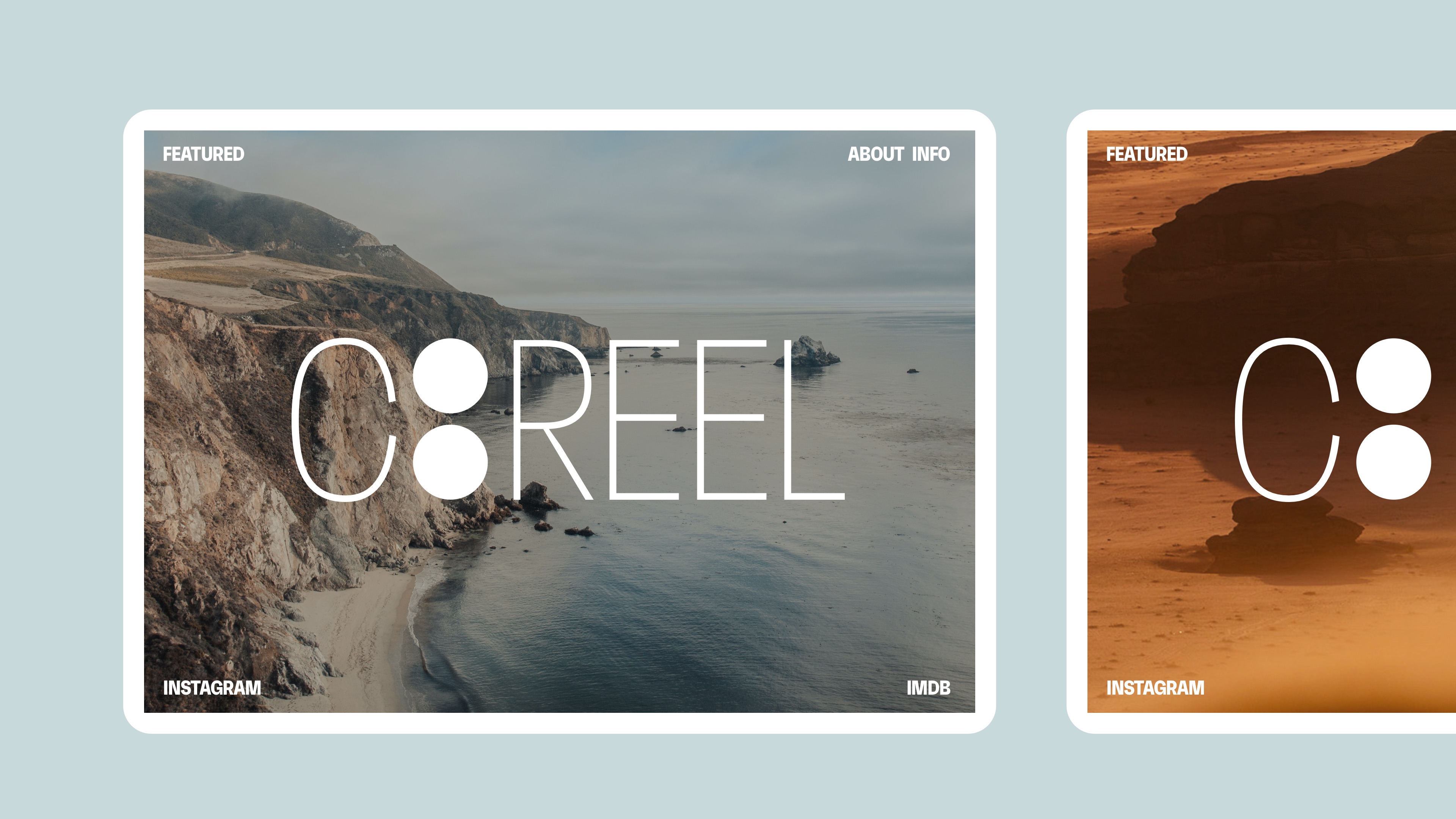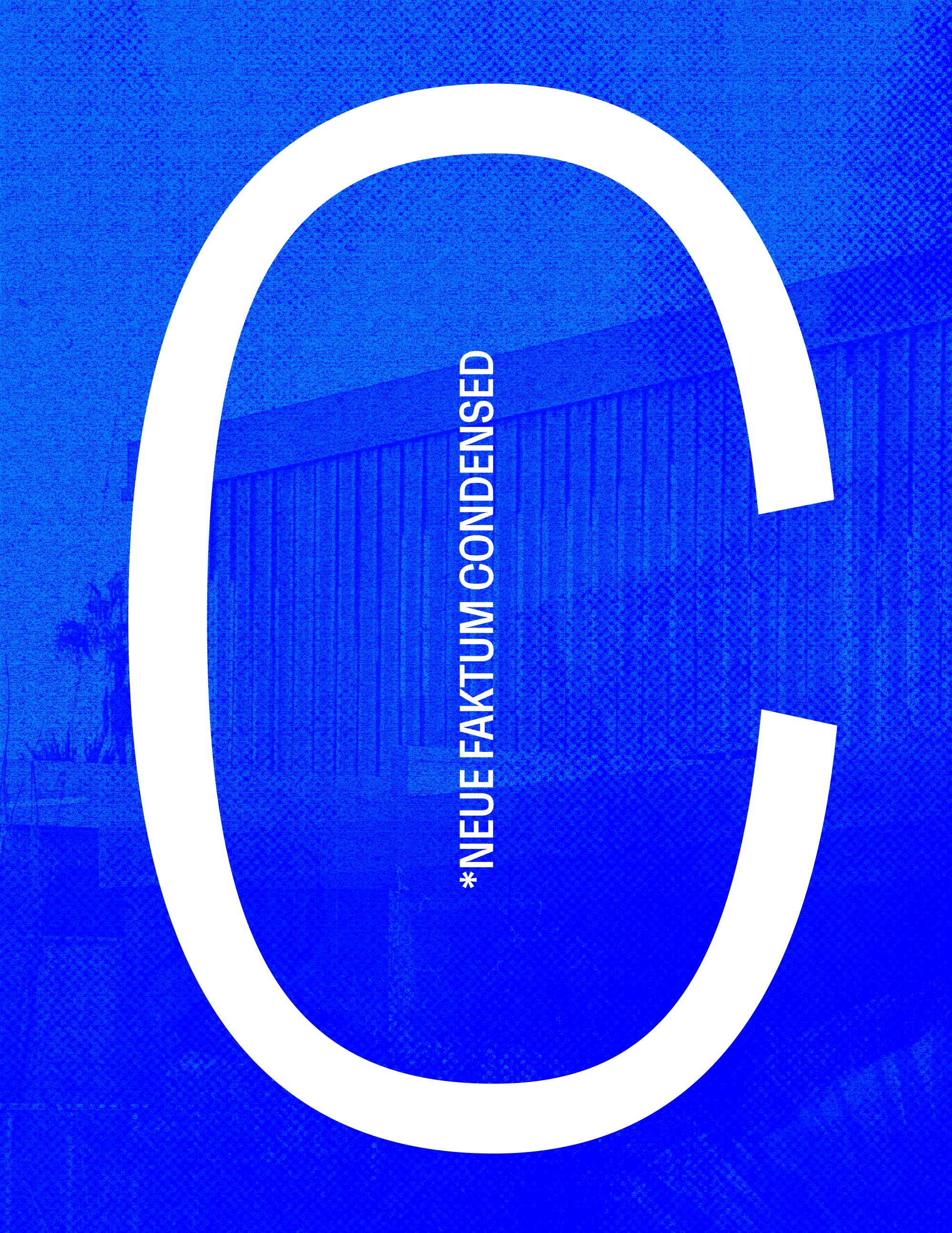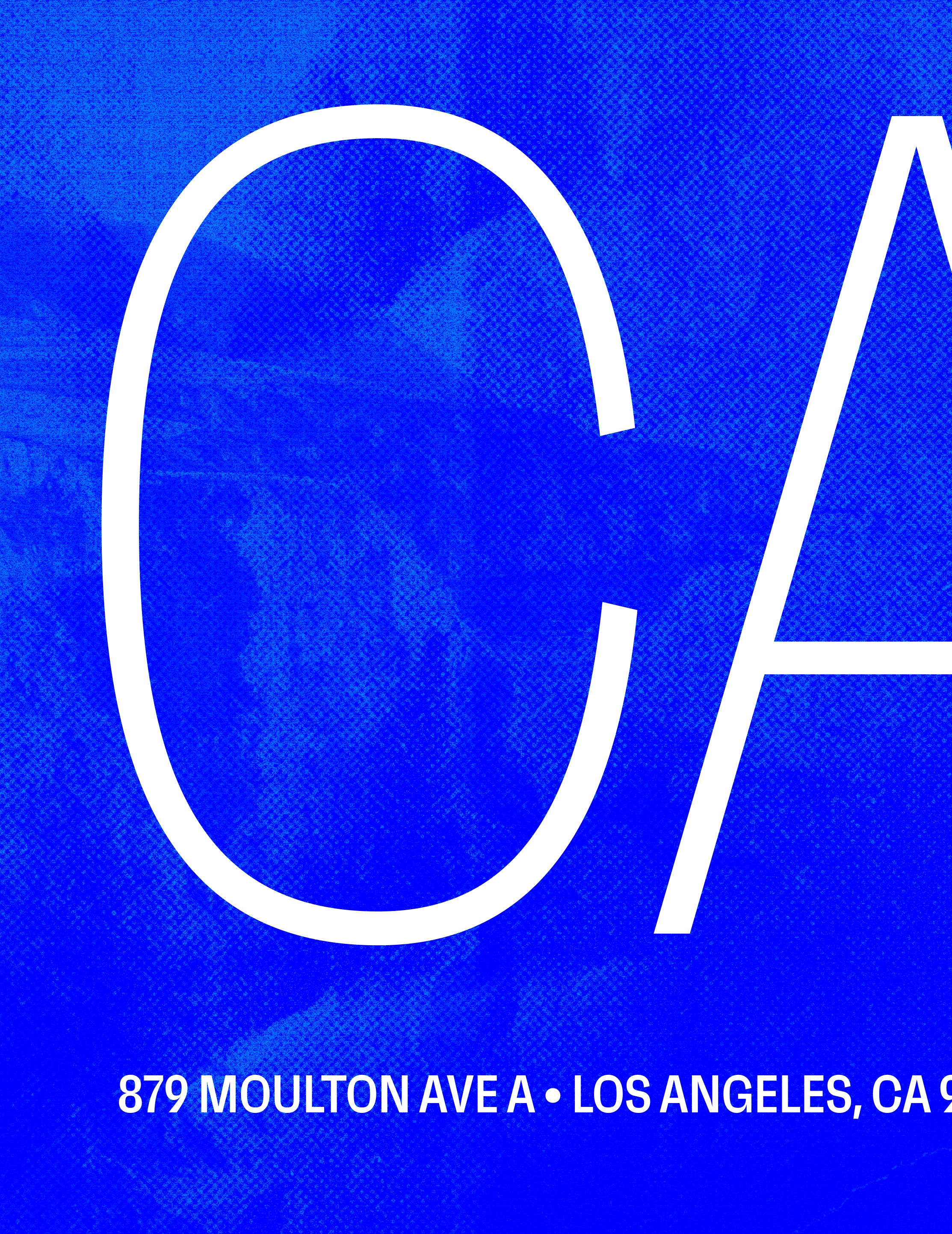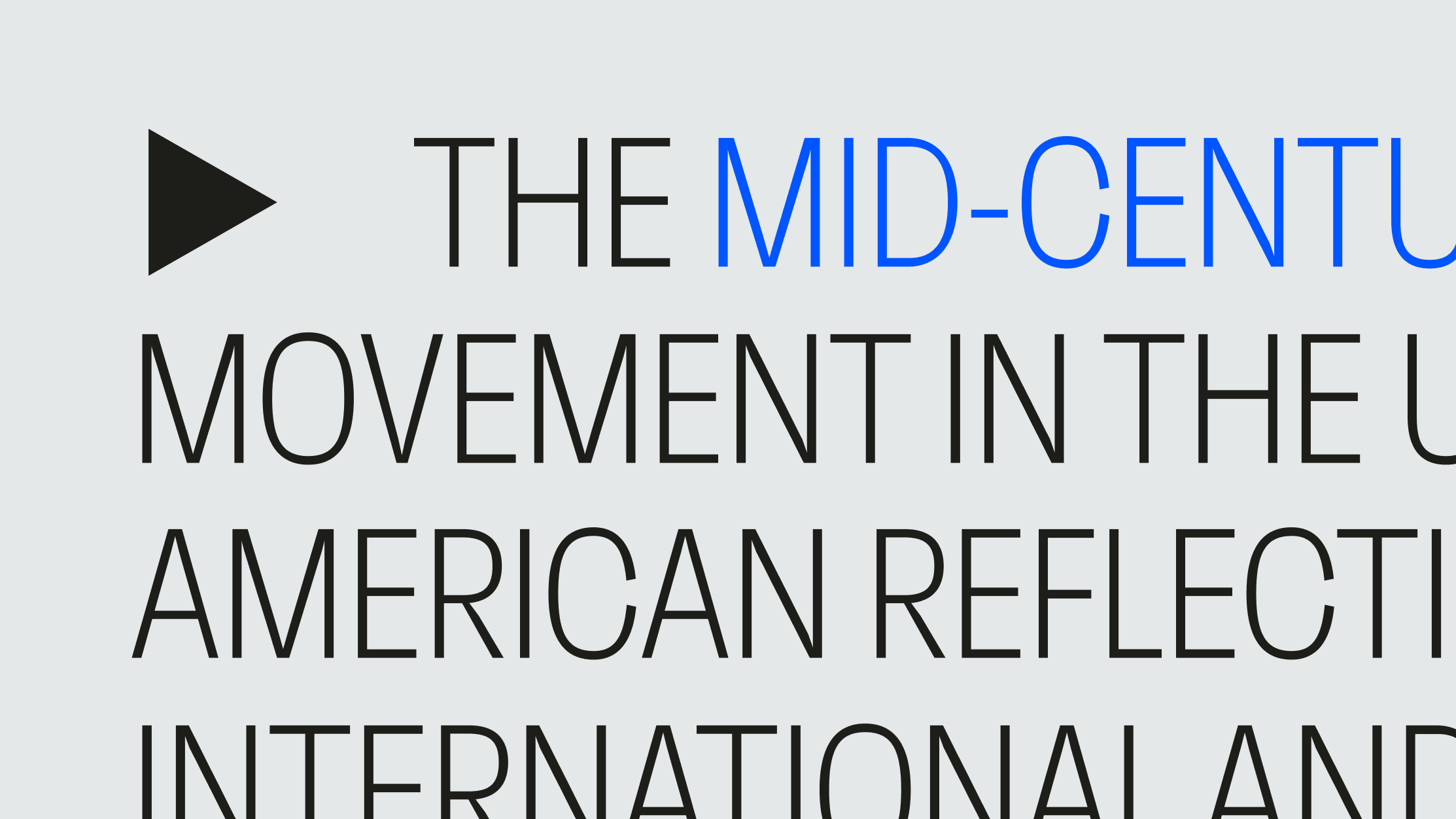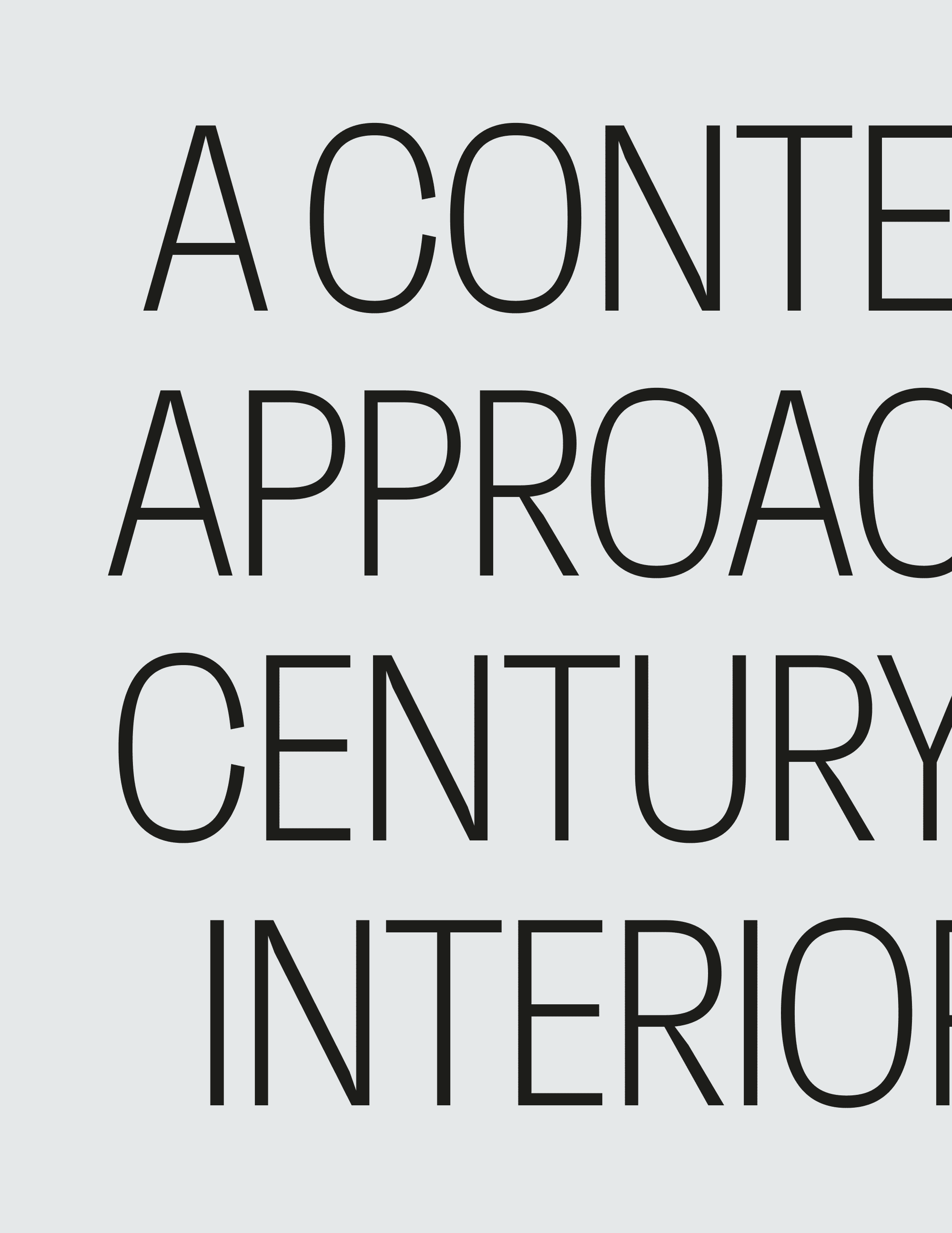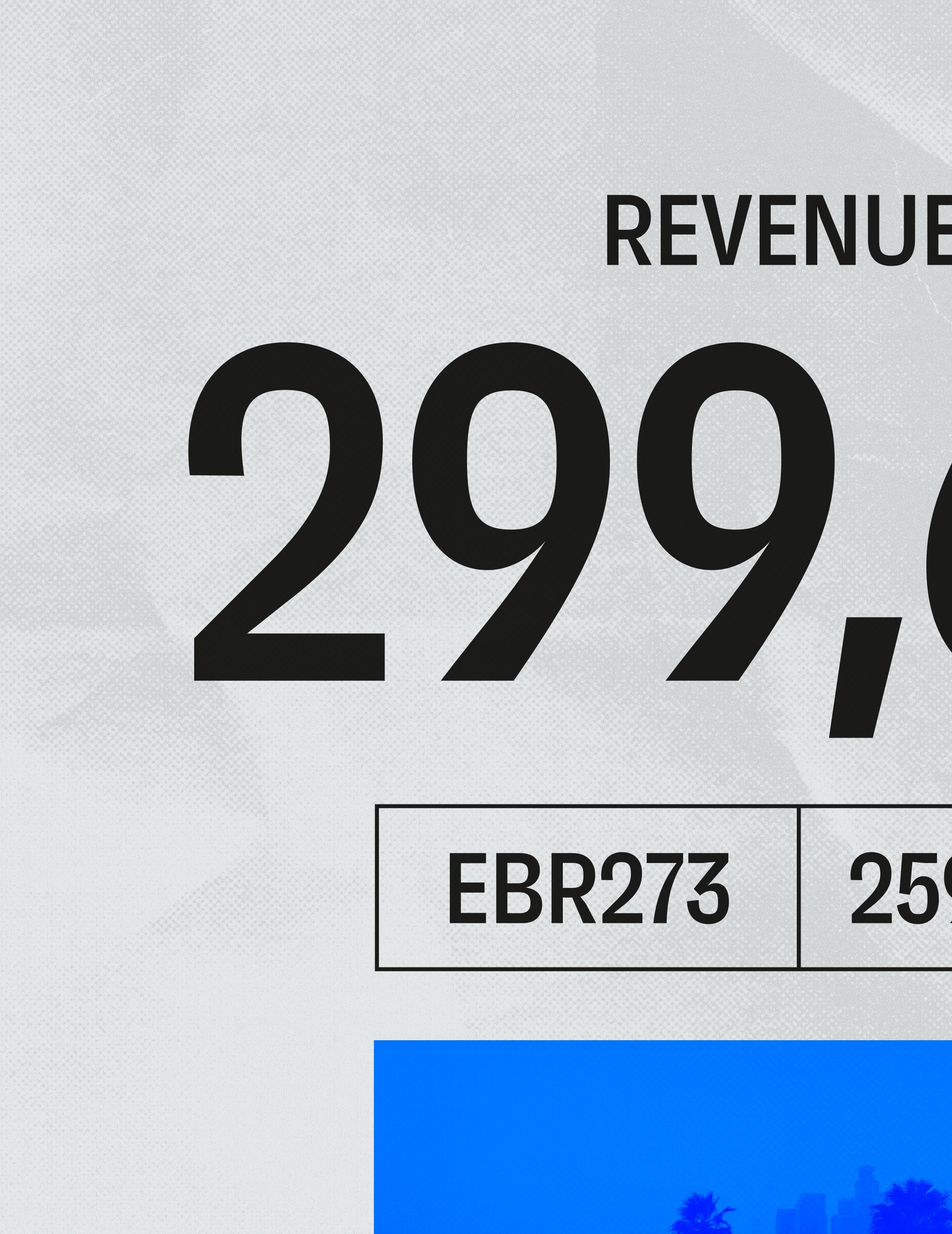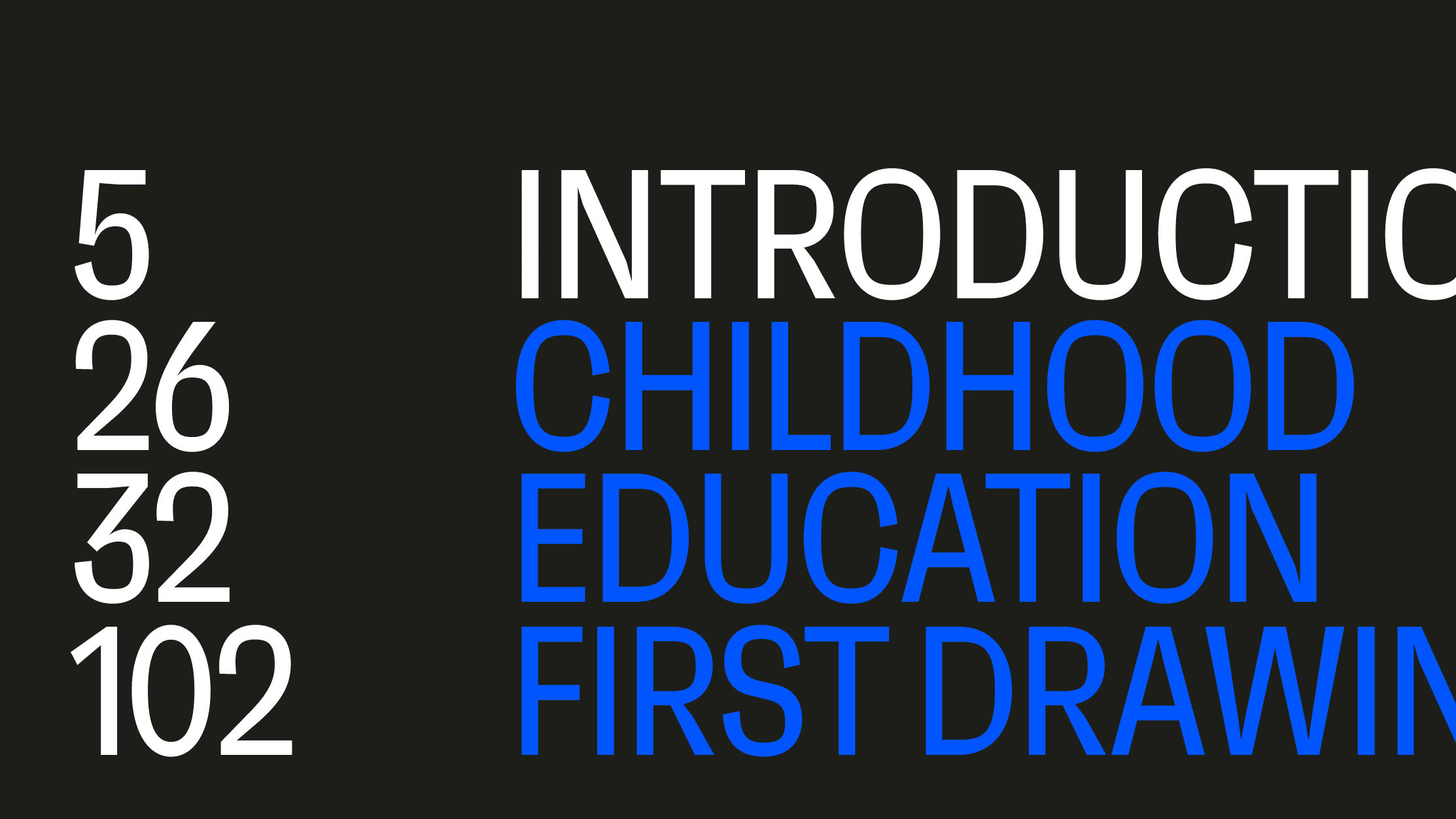
Neue Faktum Condensed
Neue Faktum Condensed combines geometric clarity with compact proportions. Its narrow structure creates a strong visual presence while retaining warmth and approachability. Also available in Normal and Extended widths.